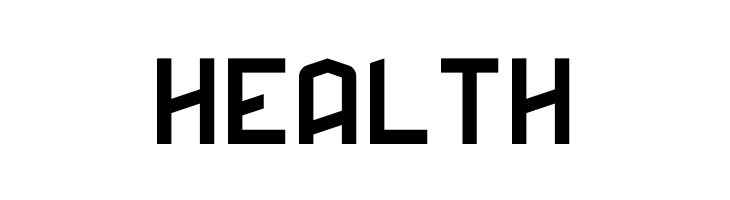
• Kawkab Mono Light Bold
A clean, modern monospaced font with uniform character width and geometric structure.
• GeneraleMonoC
A bold, geometric font with an industrial and modern design.
• GeneraleMonoA
A bold, geometric monospaced font with a modern, technical style.
• Cocobels bold
( Fonts by Figuree Studio )
A bold, decorative font with playful swirls and curves.
• Moonliona
( Fonts by Figuree Studio )
A bold, playful script font with a hand-drawn feel.
• Quebec Italic
A sleek, modern italic font with dynamic and elegant characteristics.
• Quebec SemiBold Italic
A modern, semi-bold italic font with clean lines and a dynamic style.
• Quebec SemiBold Regular
A modern sans-serif font with semi-bold weight and uniform stroke widths.
• Quebec Light Regular
A clean, modern sans-serif font with consistent stroke width and excellent readability.
• Quebec Regular
A clean, modern sans-serif font with balanced proportions and excellent readability.